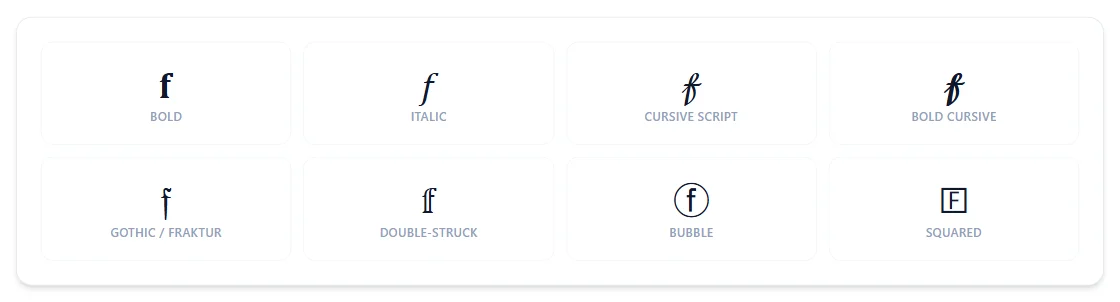
Fancy Letter F Font
Every fancy font style rendered for just the letter F, so you can compare them side by side before picking one for an initial, a logo, or a single-character tag.
The Letter F in Every Style
The letter F rendered in bold, italic, cursive script, bold cursive, gothic/fraktur, double-struck, bubble, and squared styles
F's script form (ℱ) is borrowed from an older part of Unicode too — it's the same character used in math and physics for a Fourier transform, standing in because the newer Mathematical Alphanumeric block skipped a dedicated script capital F.
Why does script F look slightly different from the rest of the alphabet?
It reuses ℱ, an older Unicode character best known as the Fourier-transform symbol, instead of a dedicated script glyph.